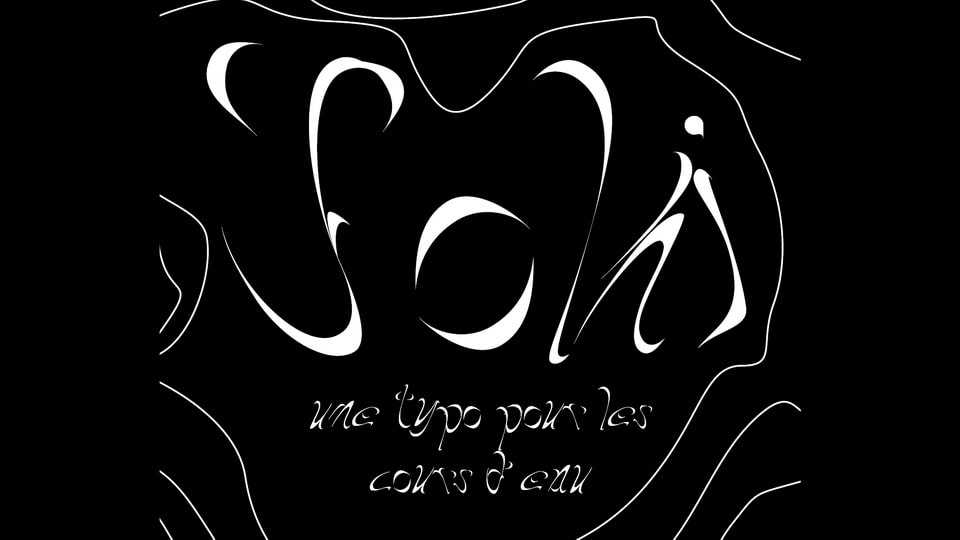
Download RandomWiki Joki font, a display typeface based on a randomly selected Wikipedia article and inspired by Kettujoki. RandomWiki Joki was created during a type design initiation workshop given by Lucas Descroix (Bonjour Monde) in February 2023.
Designer: Étienne Weber